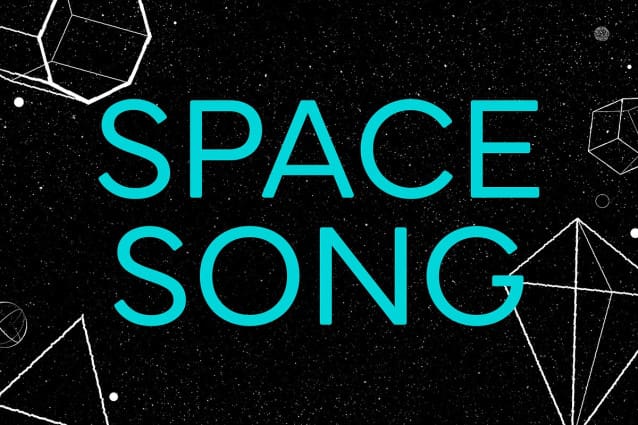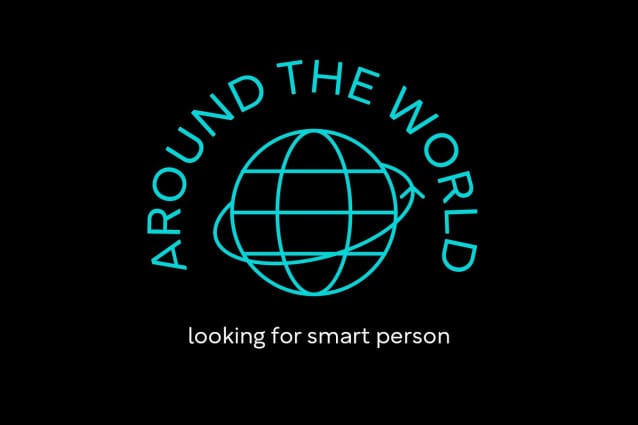
Galvote Font
Galvote Font is a geometric based clean sans serif font. Regular stroke, fun character with a bit of ligatures and alternates. To give you an extra creative work. Galvote font support multilingual more than 100+ language. This font is good for logo design, Social media, Movie Titles, Books Titles, a short text even a long text letter and good for your secondary text font with script or serif. Make a stunning work with Galvotefont.